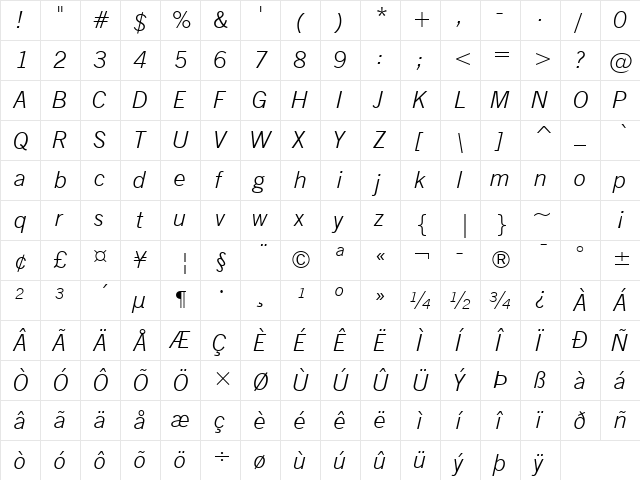
NewsGoth Lt BT Light Italic
Design Context for NewsGoth Lt BT Typeface
NewsGoth Lt BT offers clean, dependable letterforms without strong stylistic allegiance, making it a practical choice for designers who need flexibility. The dynamic lean of this cut emphasises speed and emphasis in any layout. The delicate stroke weight brings airiness and refinement to layouts.
Pro Tip: Use NewsGoth Lt BT for emphasis, pull quotes, and subheadings where its slanted energy can add rhythm to the layout.